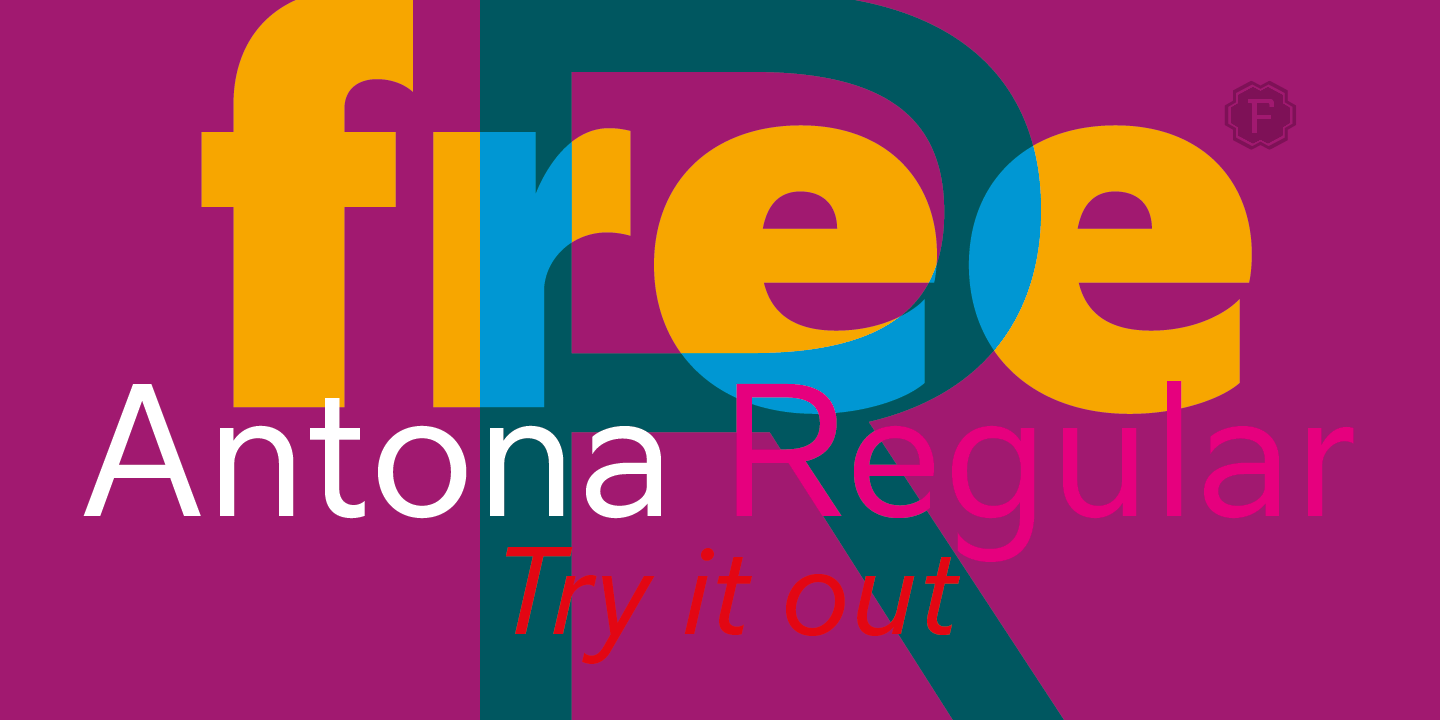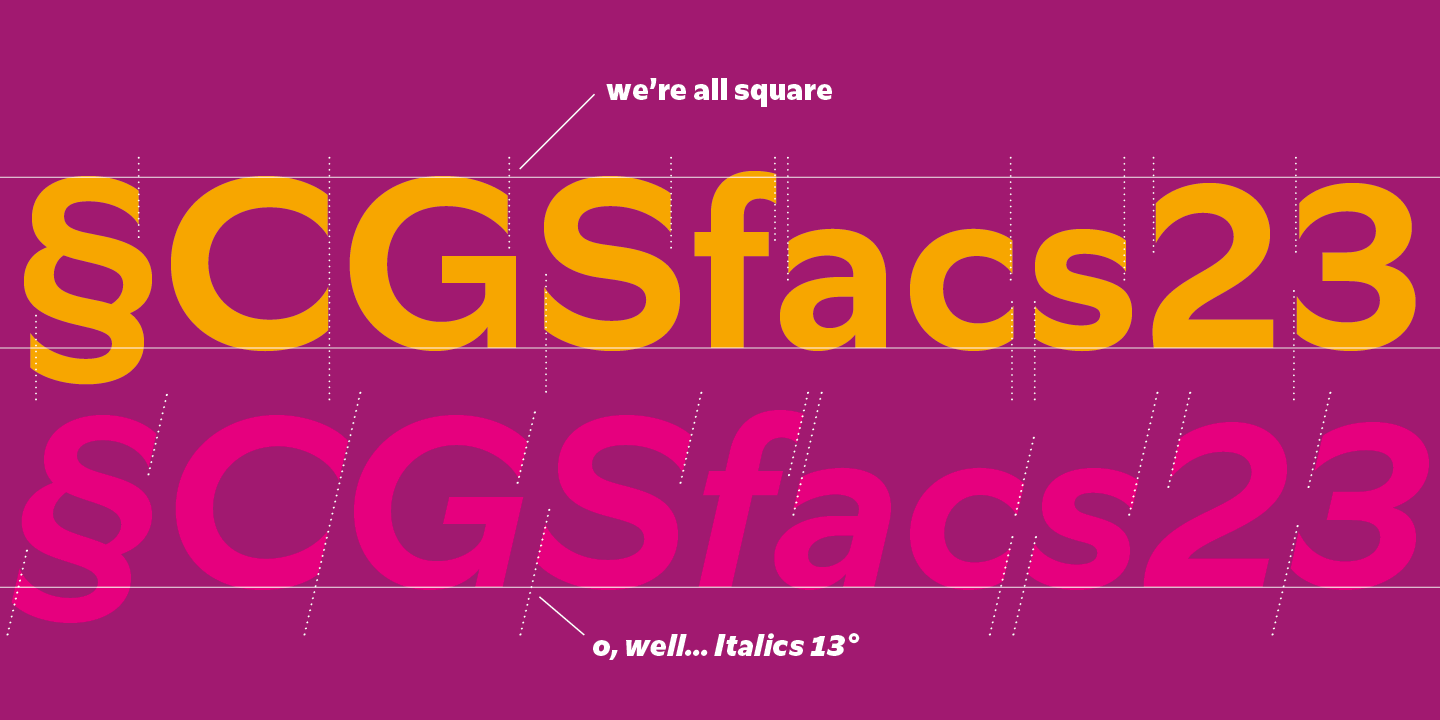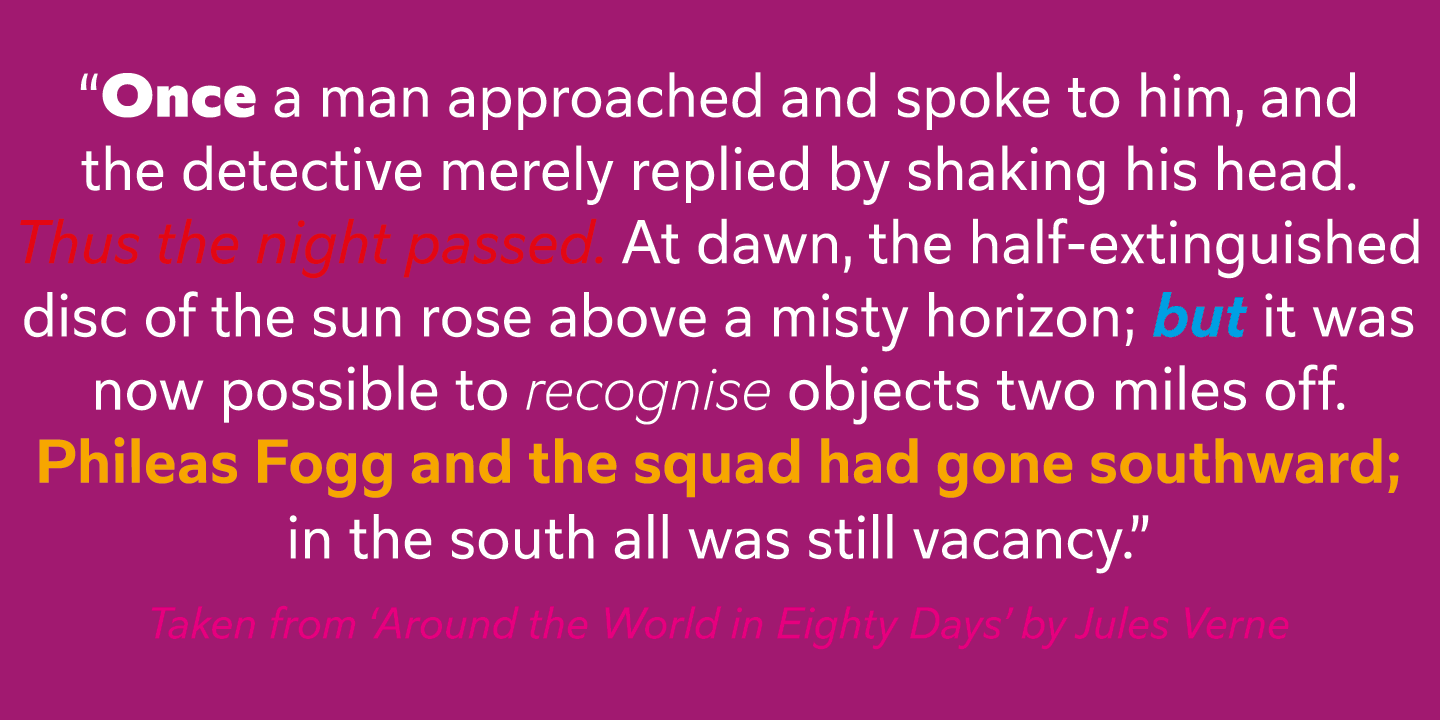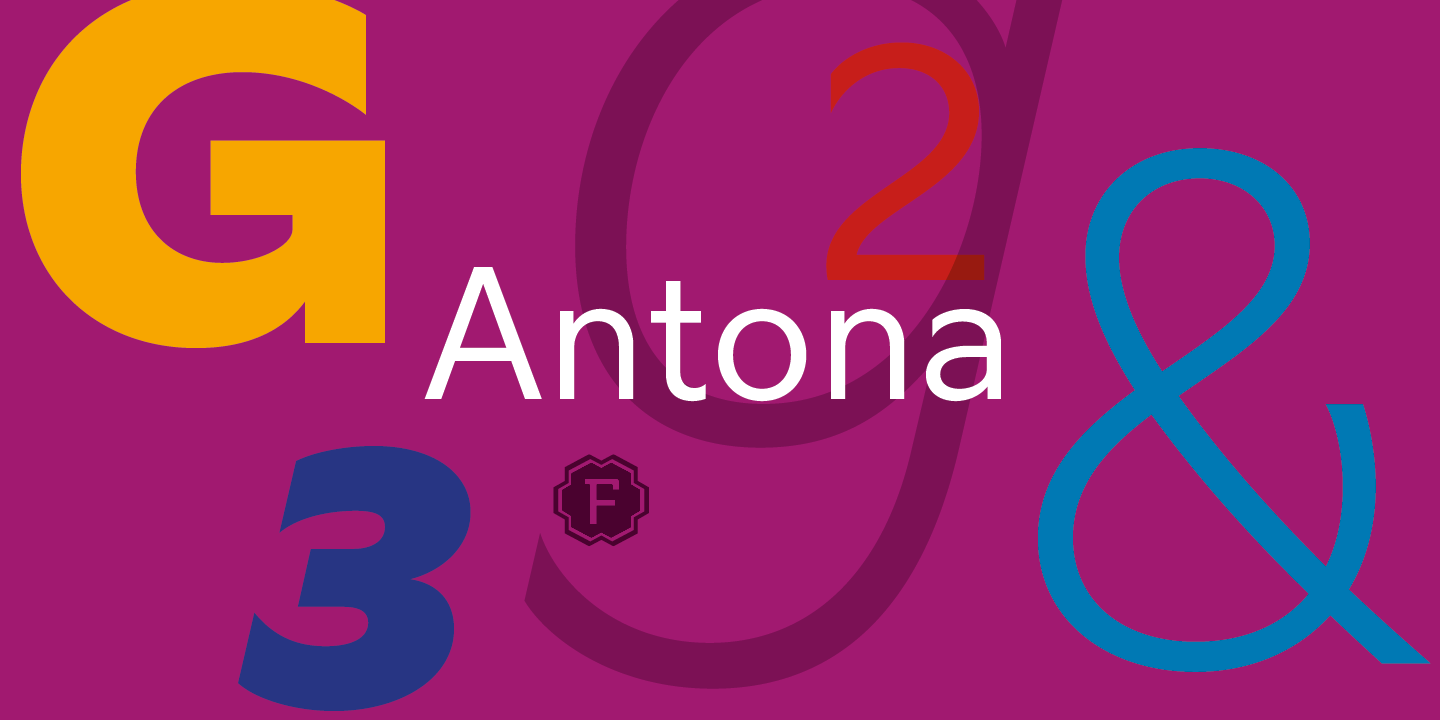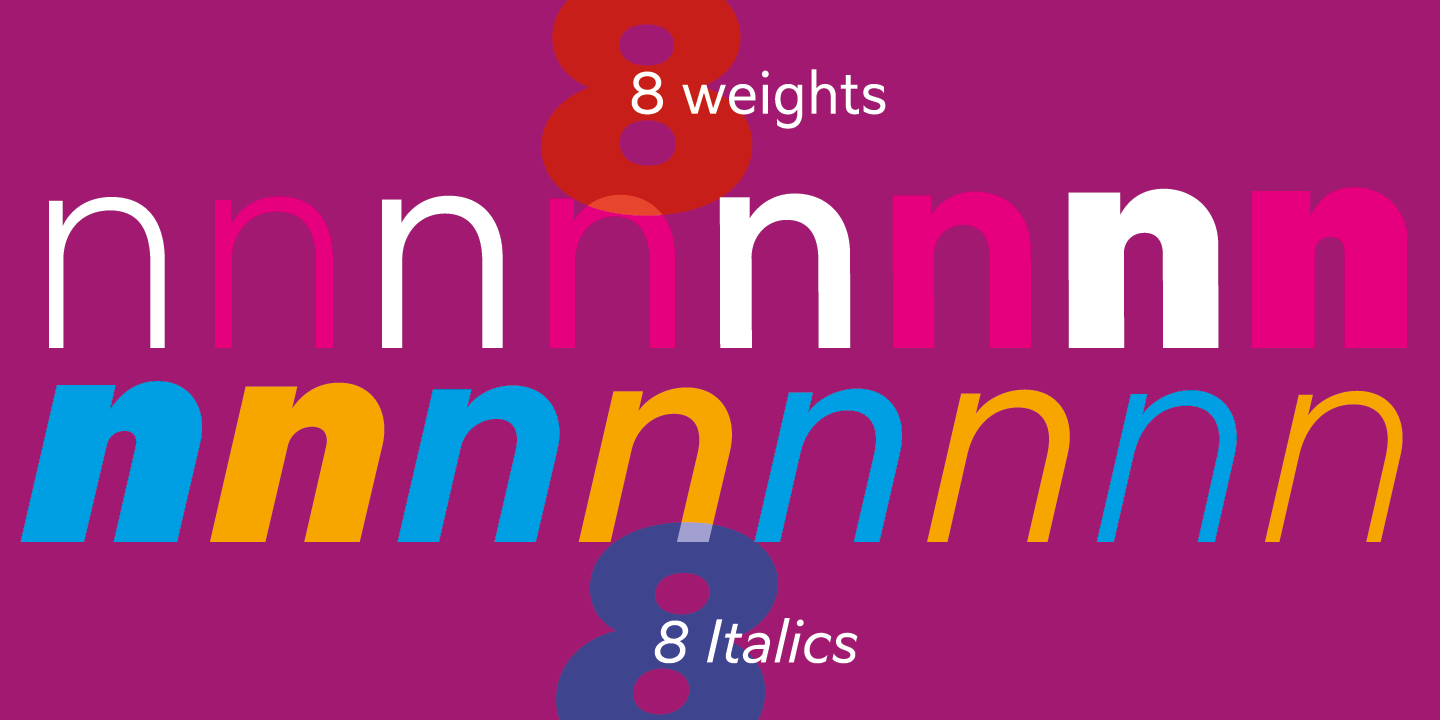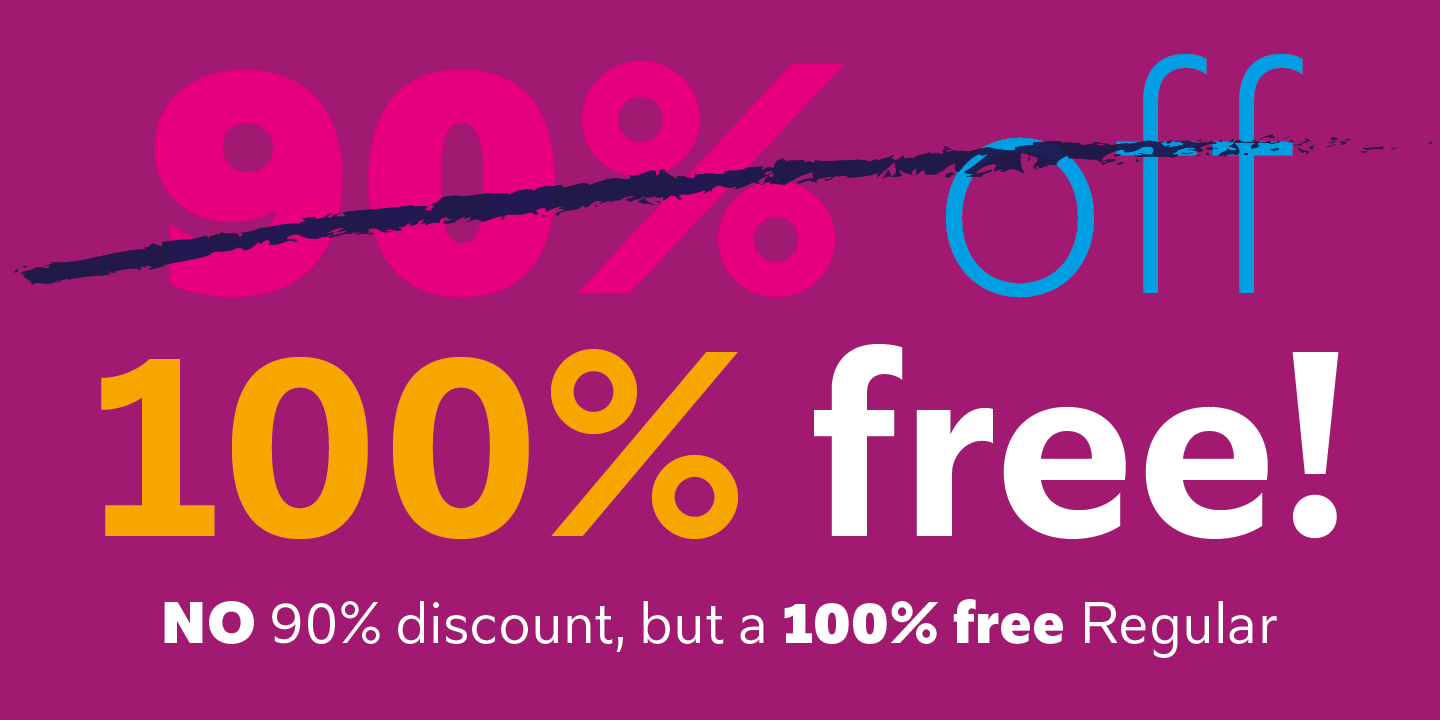
HomeFont BrosContemporaryAntona ContemporarySans Serif Antona FacebookXPinterestWhatsApp 1 of 6 About Antona Antona is a modern, friendly geometric sans serif. It comes in eight weights, with italics, 16 fonts in total.  DOWNLOAD NOW People also explored Ottami Font Onegreen Font Aluna Font Make History Font Regular Font Jungland Outline Black Font Hi Flow Font Game Font Lovelly Quote Font 399 0 TagsAntonaAntona Font Previous articleModern Love SlantedNext articleBygone LEAVE A REPLY Cancel reply Comment: Please enter your comment! Name:* Please enter your name here Email:* You have entered an incorrect email address! Please enter your email address here Website: Save my name, email, and website in this browser for the next time I comment. Personal Use Free Pompom Personal Use Free Read more about this font Cosmos Personal Use Free Read more about this font My Shine Personal Use Free Read more about this font Mail Ray Stuff Personal Use Free Read more about this font BLOG Transform Your Website: Elevate Your Typography with 7 Best Web Font Generators Are you ready to transform your website's typography from ordinary to extraordinary? Great! Today, we're diving into the world of web font generators, which... Where to Buy American Fonts Online in 2024 Fonts That Capture the Spirit of New York City Free Fonts Risk: Why Free Fonts Can Be Dangerous for Designers